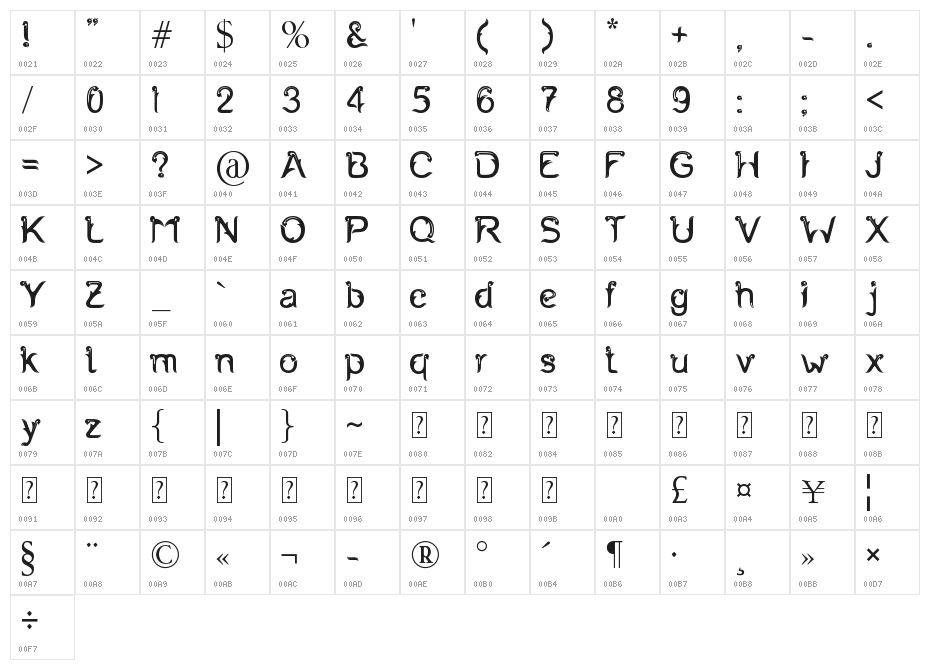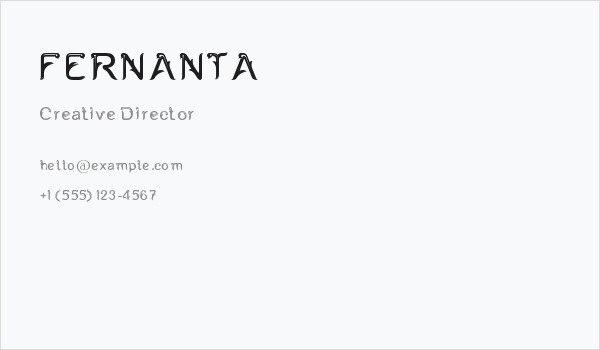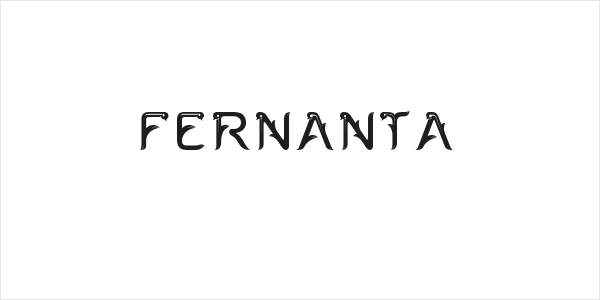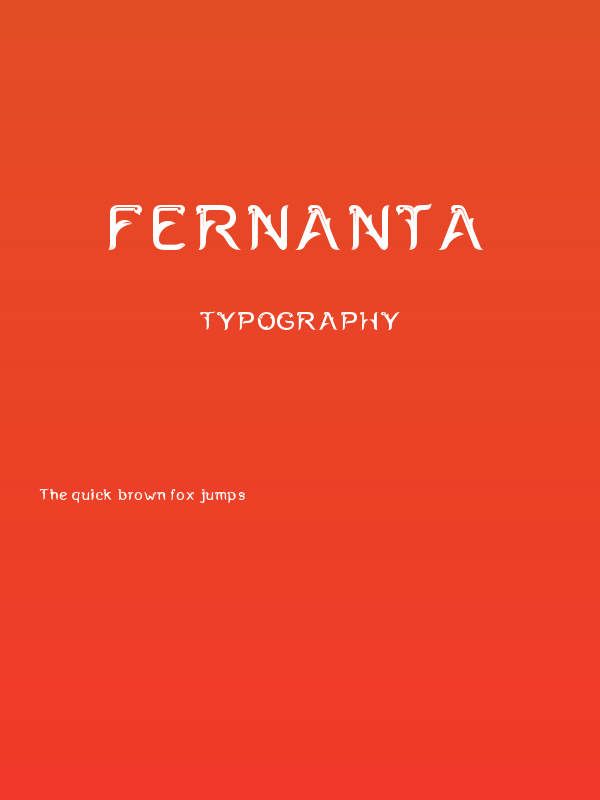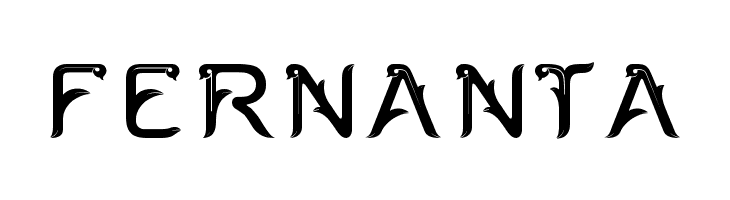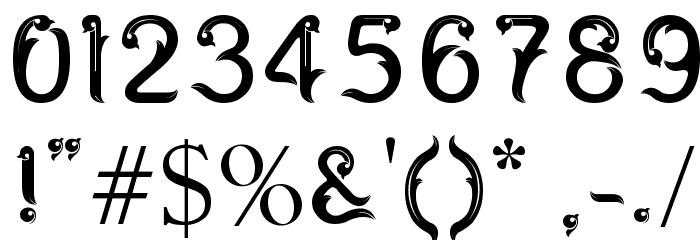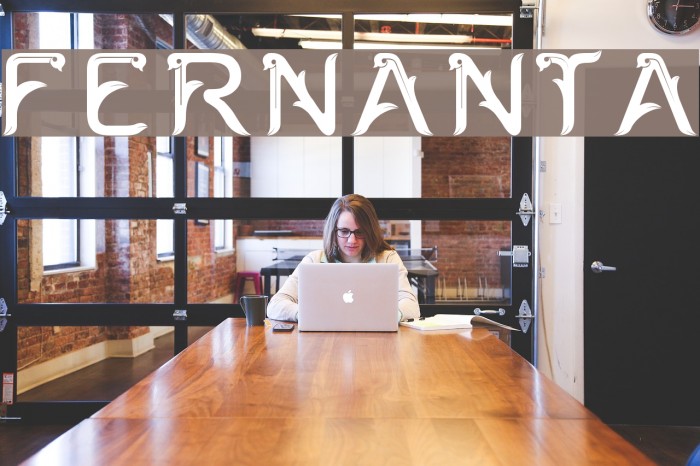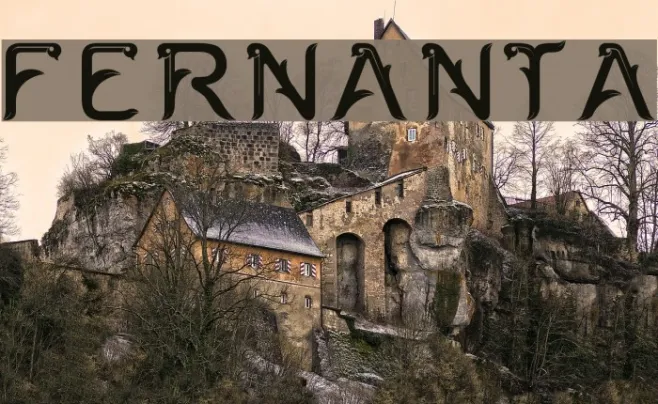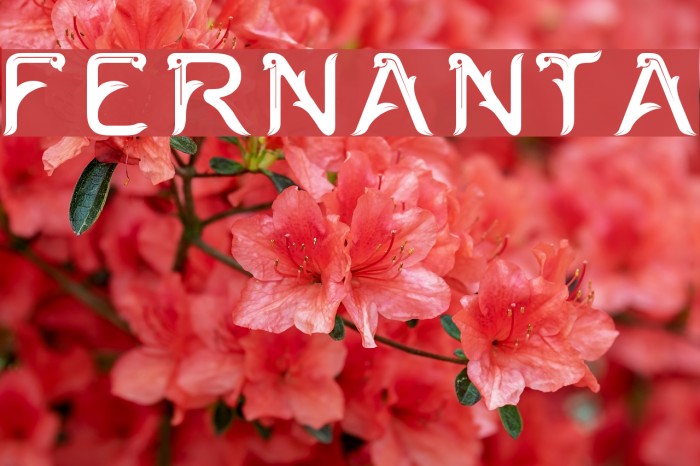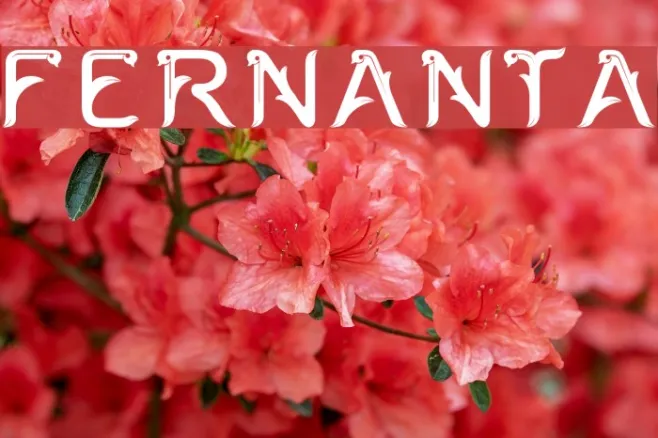
FERNANTA Font
FERNANTA Description
This font features a unique and artistic design, characterized by its decorative and slightly whimsical elements. Each character is adorned with subtle flourishes and curves, giving it a distinct personality. The strokes are bold and consistent, with a medium contrast between thick and thin lines. The overall appearance is both playful and elegant, making it suitable for creative and expressive projects. The font maintains a balanced structure, ensuring readability while adding a touch of flair. Its decorative nature makes it ideal for attention-grabbing headlines or artistic designs where a touch of uniqueness is desired.
| Use Case | Headlines, Logos, Artistic designs |
| Proposed Projects | Ideal for creative projects such as posters, invitations, branding, and artistic headlines. |